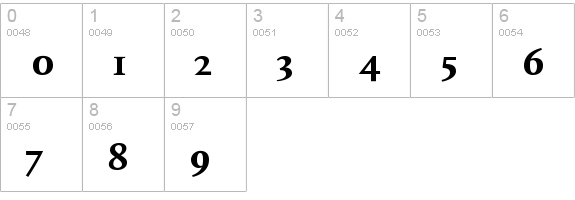
DTLAlbertinaTCaps Bold Font Details
DTLAlbertinaTCaps Bold is a strong, high-contrast variant in the DTLAlbertinaTCaps typeface family \xE2\x80\x94 well suited to headlines, attention-grabbing titles, and strong calls-to-action.
DTLAlbertinaTCaps Bold is a striking and versatile font that exudes elegance and sophistication. Its bold and distinctive letterforms are perfect for creating eye-catching headlines, logos, and branding materials. The clean lines and strong presence of this typeface make it a popular choice for both print and digital design projects. What sets DTLAlbertinaTCaps Bold apart is its unique blend of traditional and modern elements, making it suitable for a wide range of applications. Whether you are designing a poster, packaging, or website, this font will help you make a bold statement and leave a lasting impression on your audience. The best part is that DTLAlbertinaTCaps Bold is available for free download at FontsMarket.com, allowing you to access this high-quality font without any cost. Don't miss out on the opportunity to enhance your designs with this exceptional typeface. Download DTLAlbertinaTCaps Bold today and take your projects to the next level!